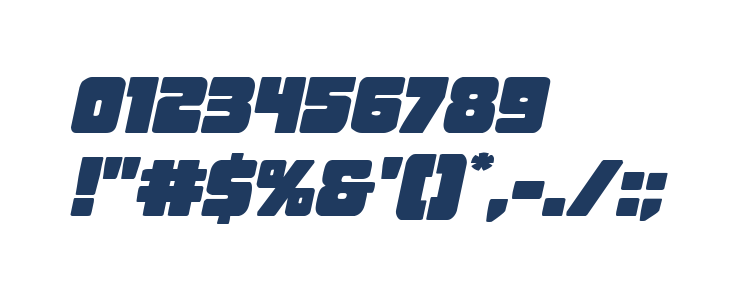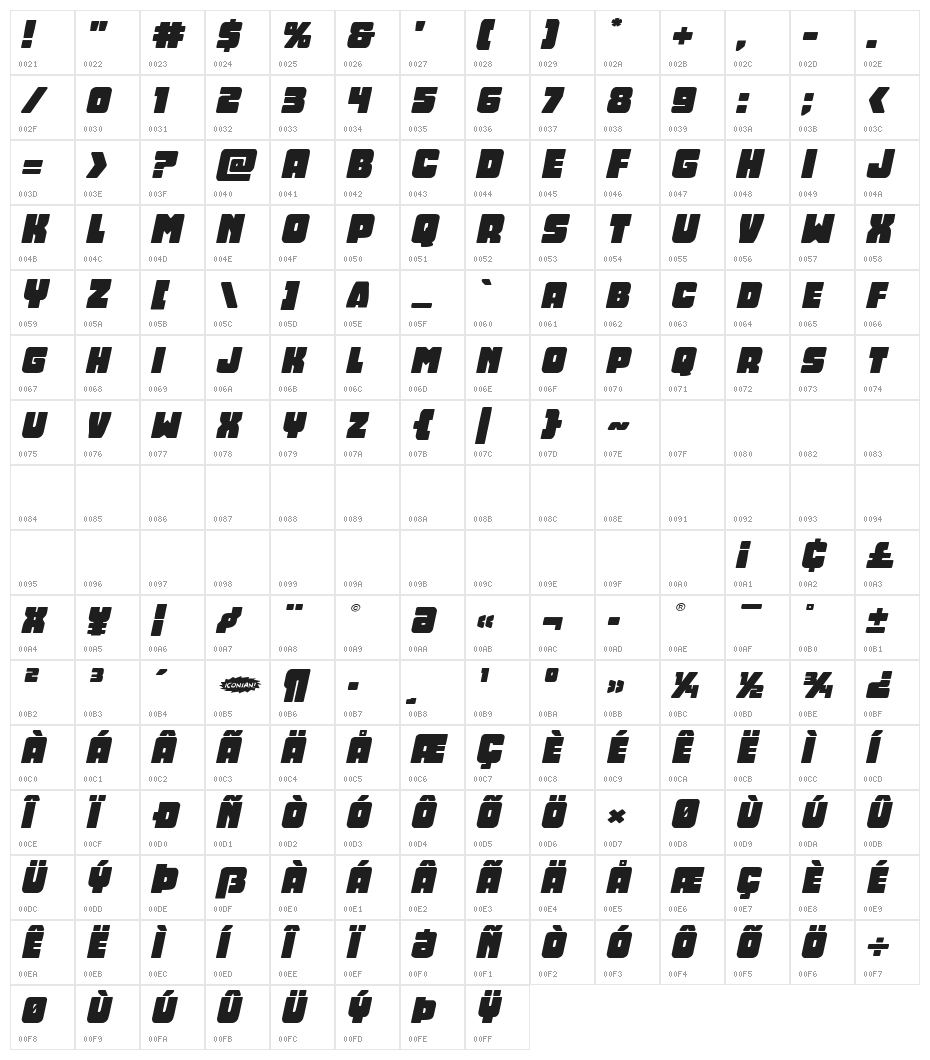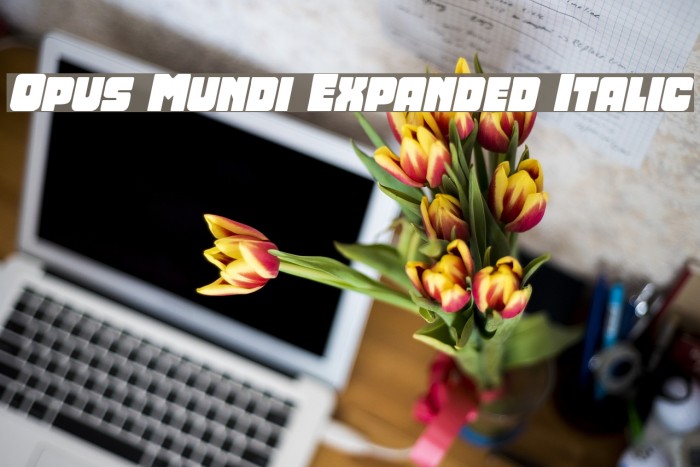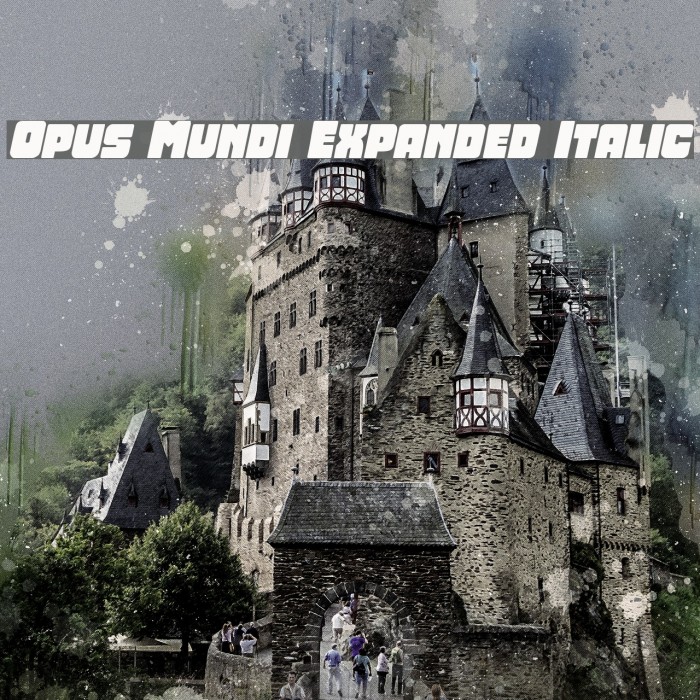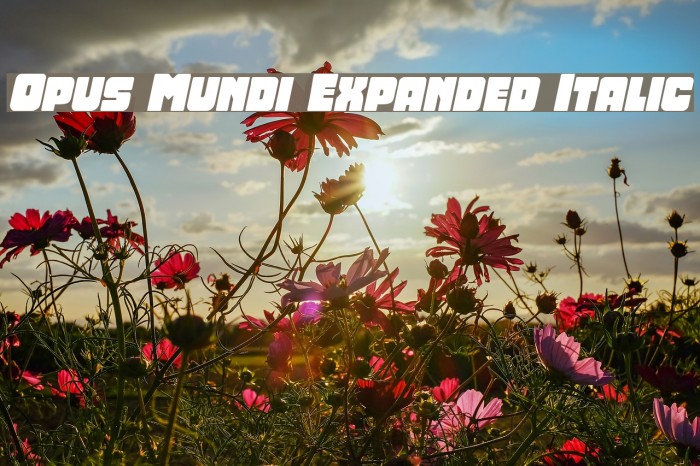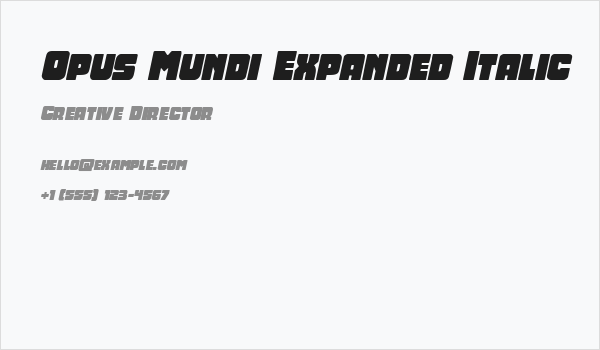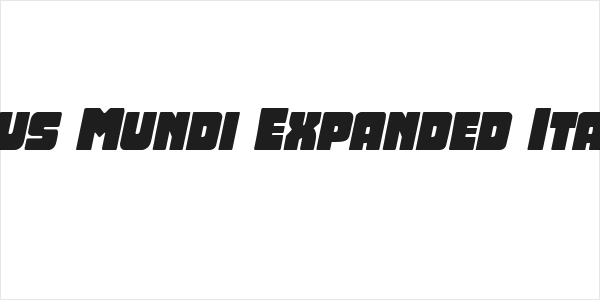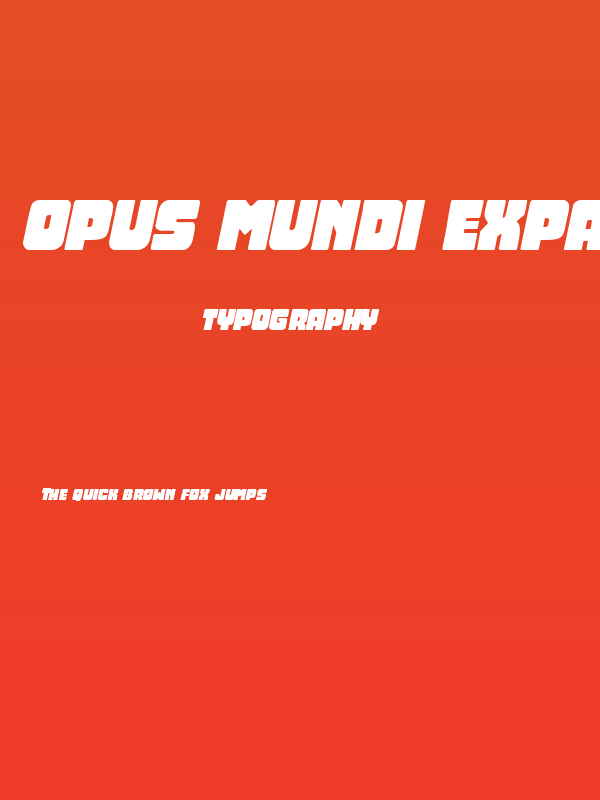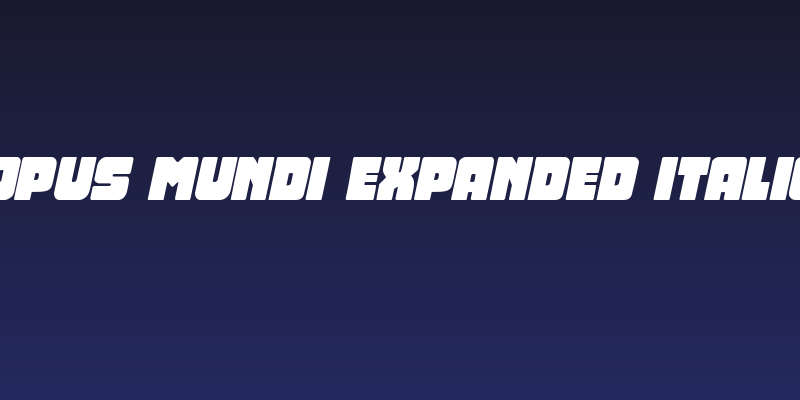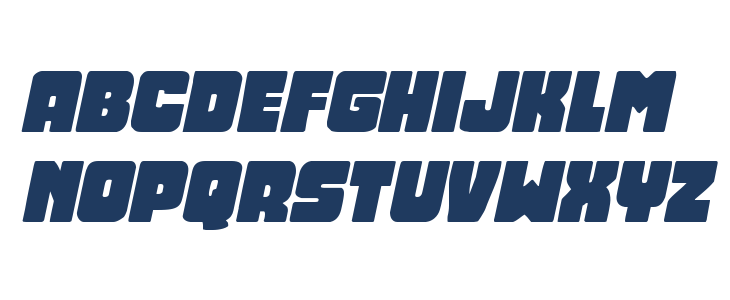
Opus Mundi Expanded Italic Font
Opus Mundi Expanded Italic Description
This font features a bold and expansive design with a distinct italic slant, giving it a dynamic and energetic appearance. The characters are wide and robust, with a strong presence that commands attention. The strokes are thick and consistent, providing a sense of stability and strength. The overall style is modern and impactful, making it suitable for projects that require a bold statement. The spacing between characters is tight, enhancing the compact and cohesive look of the text.
| Proposed Projects | Ideal for headlines, posters, branding, and advertising where a strong and impactful typeface is needed. |